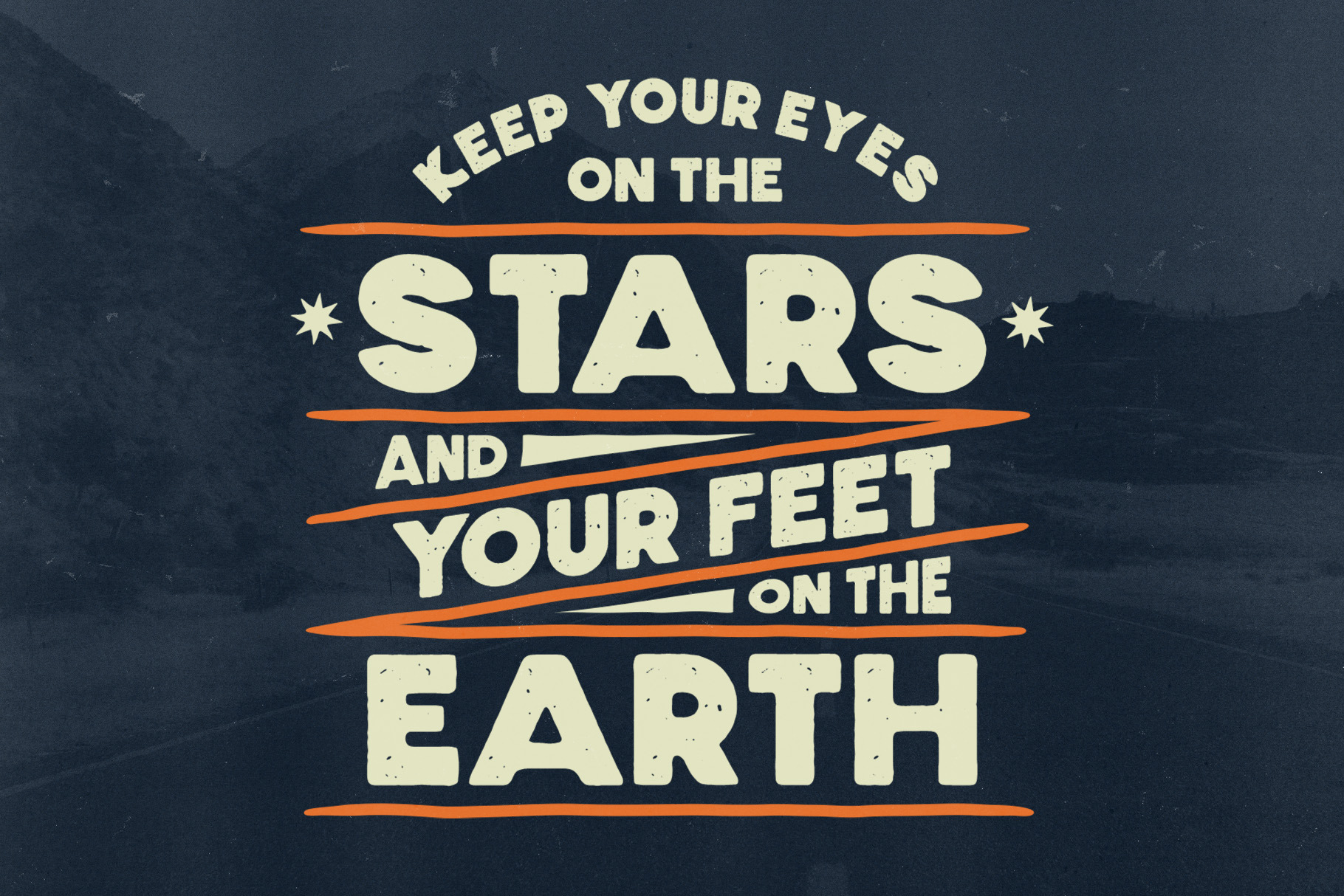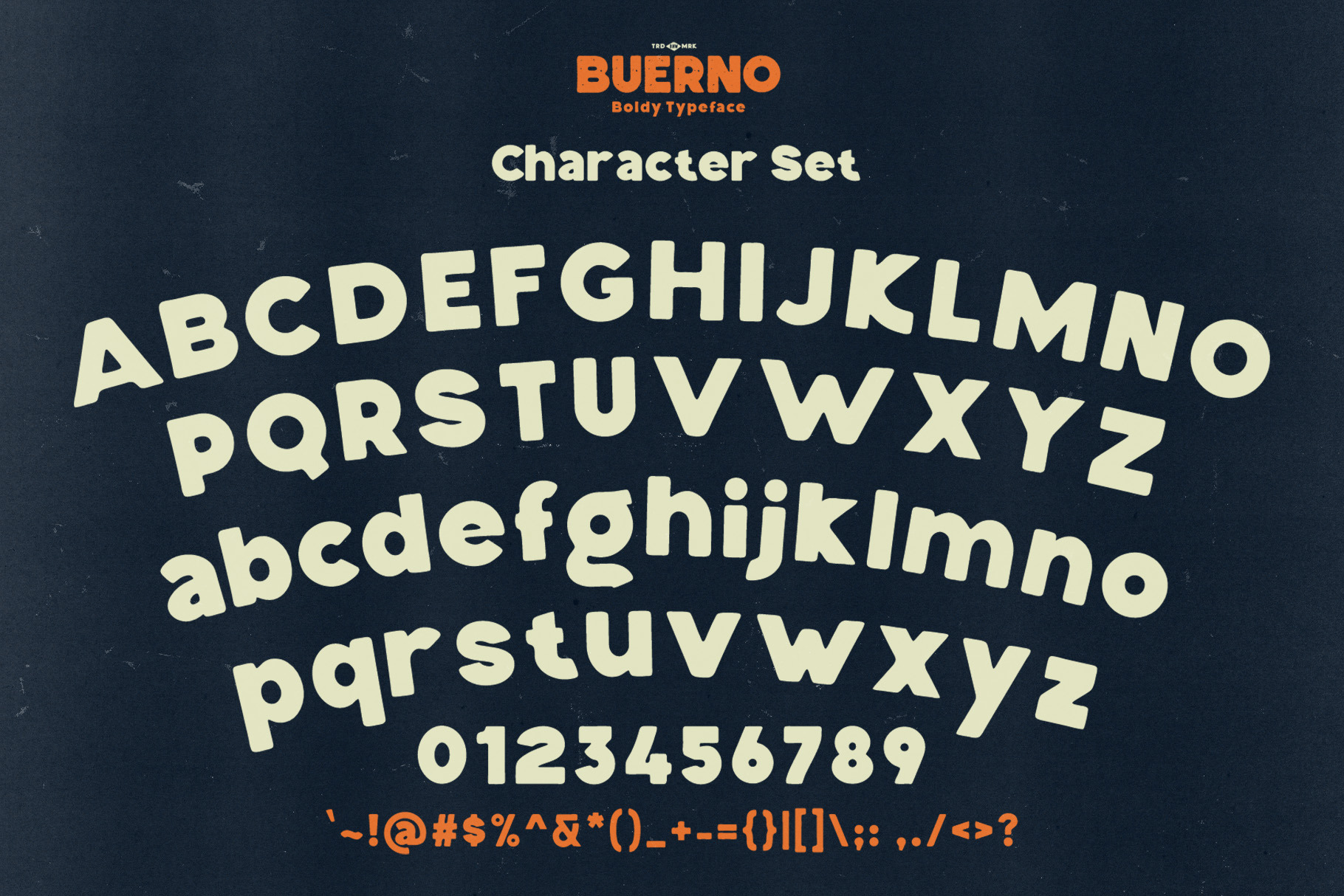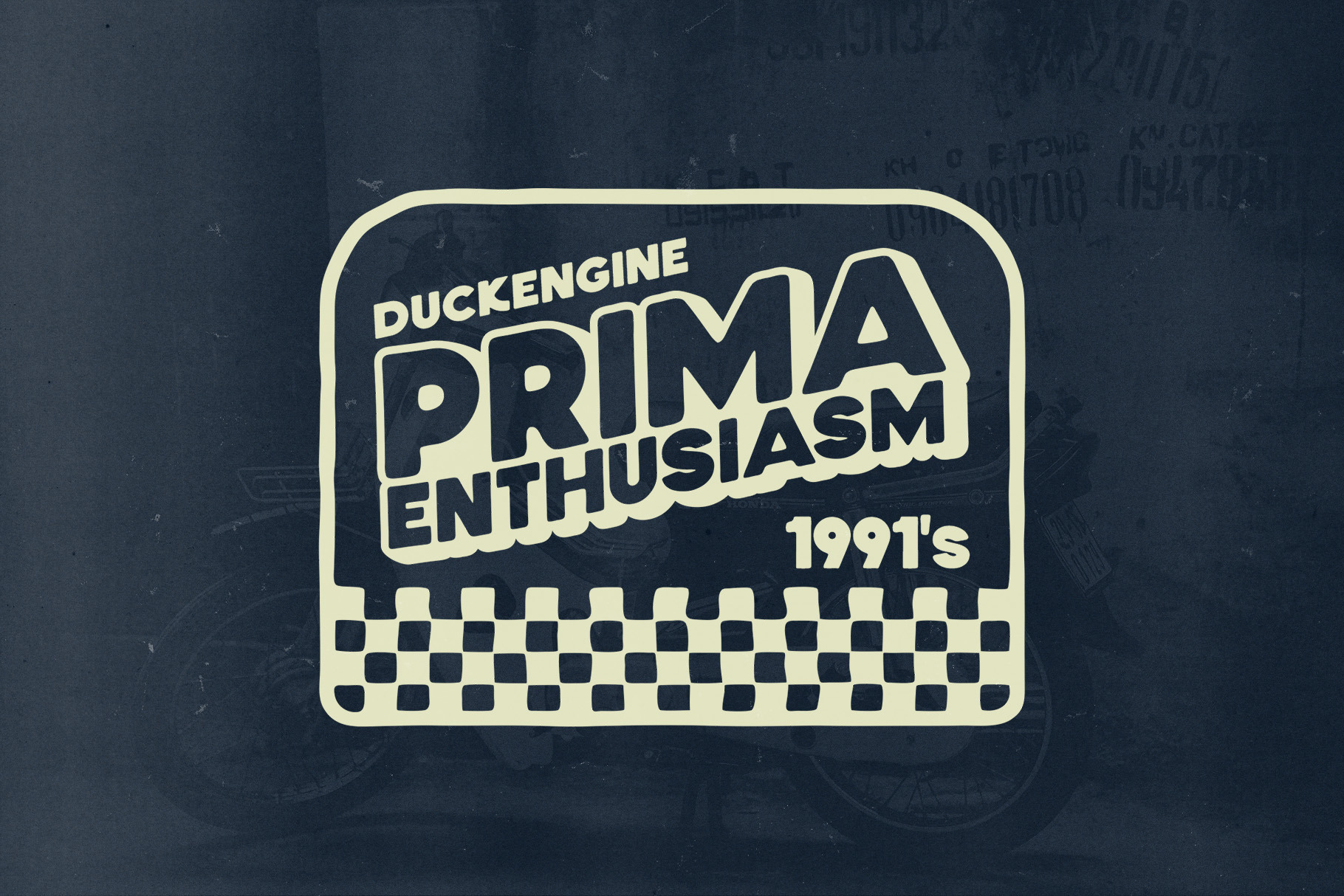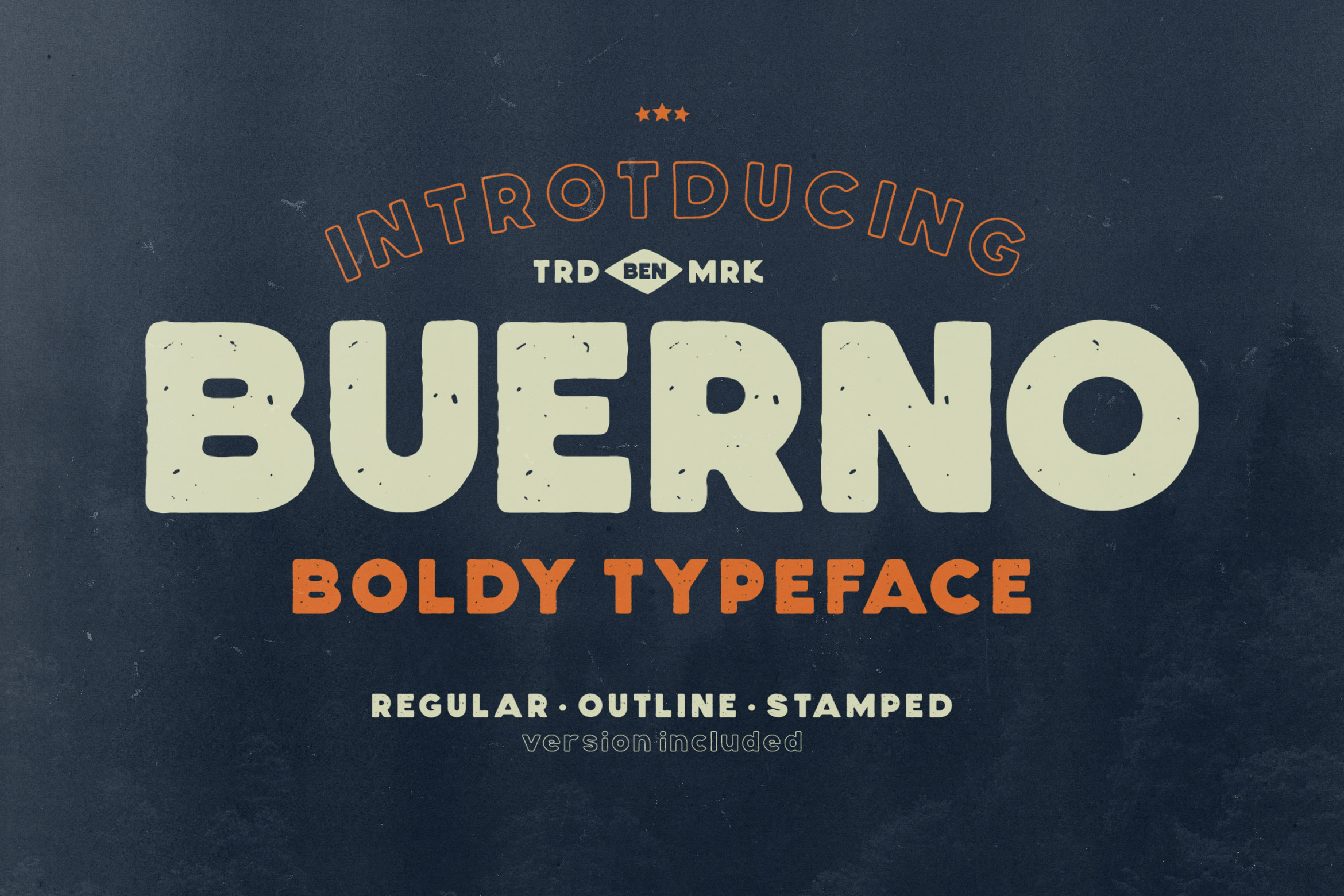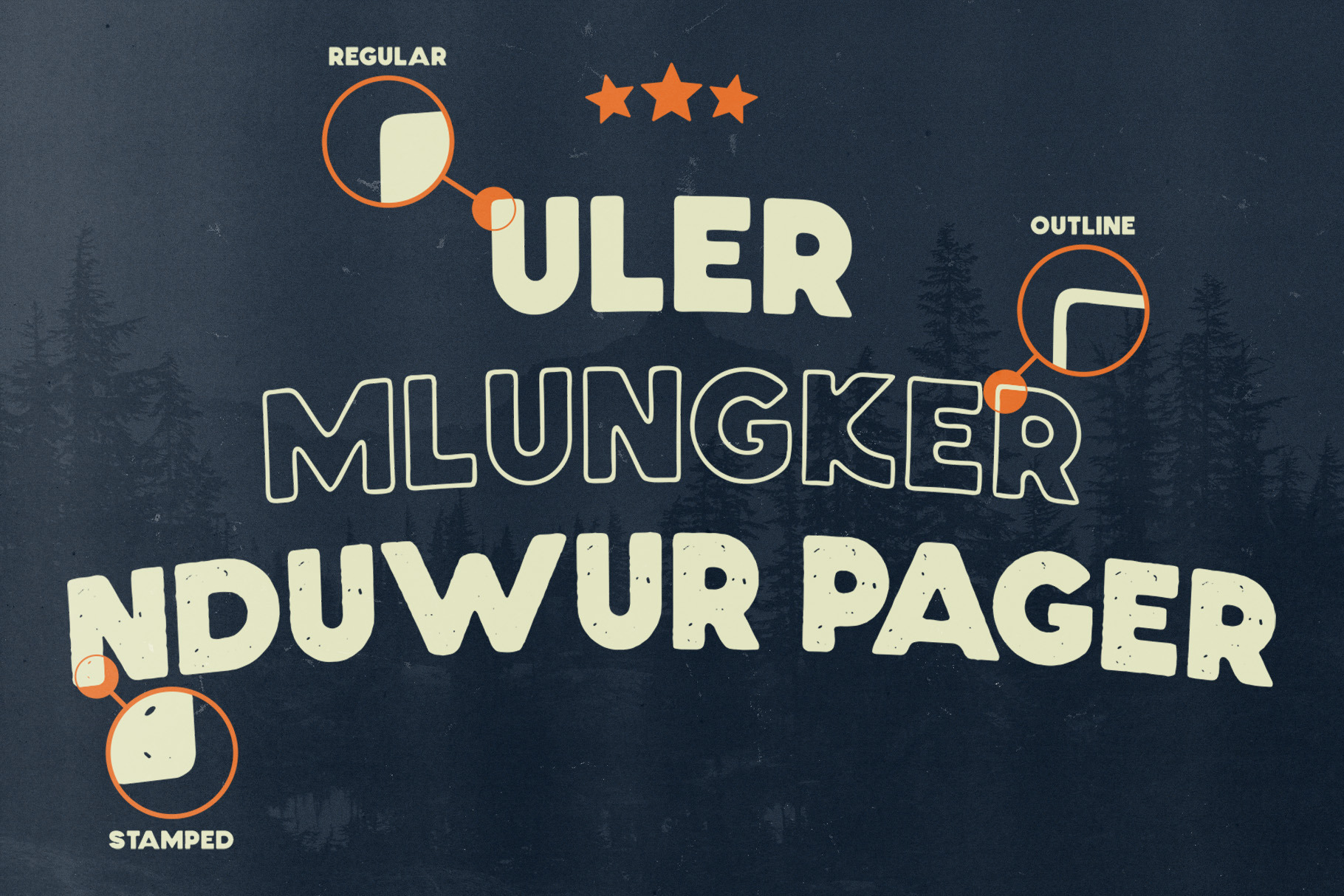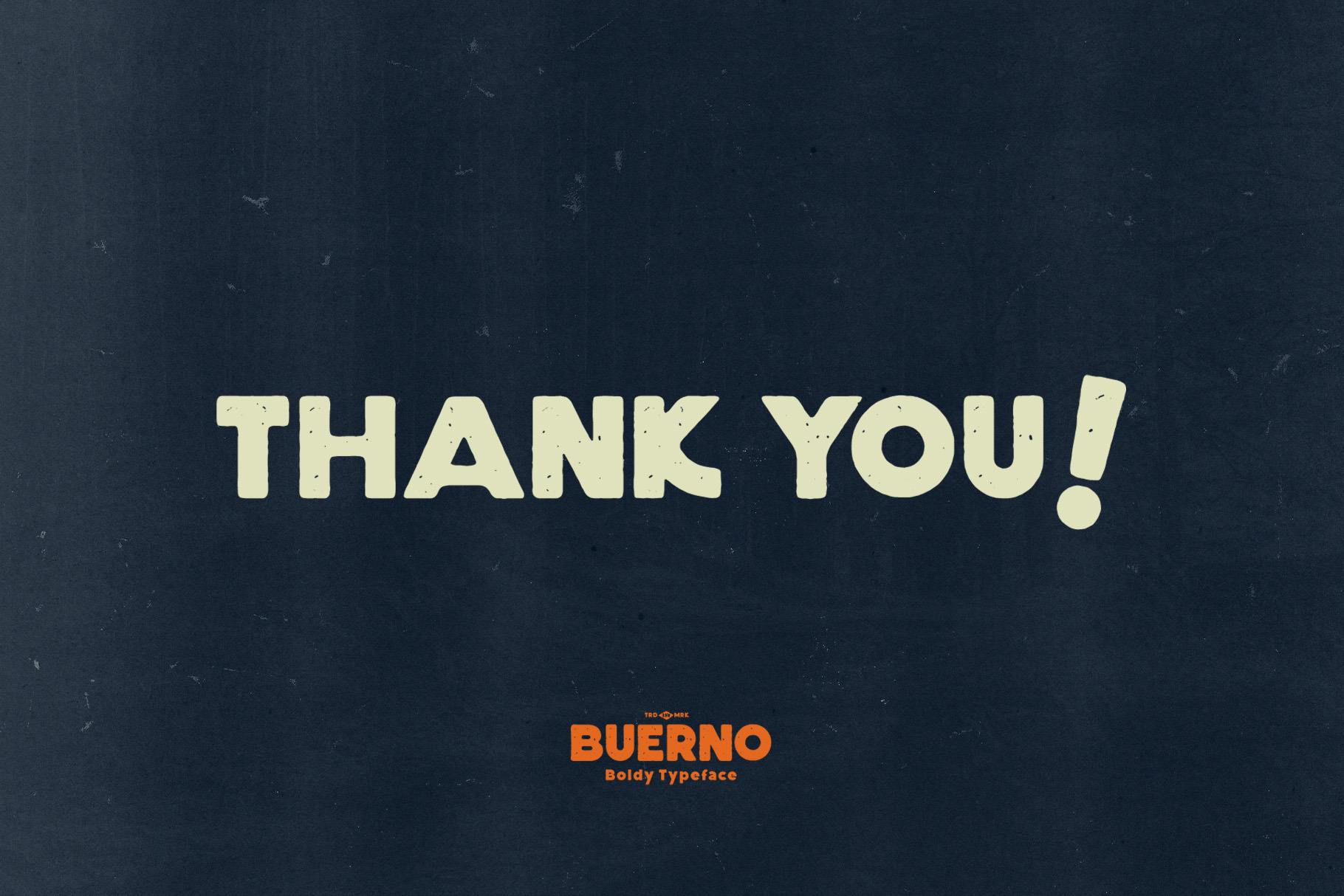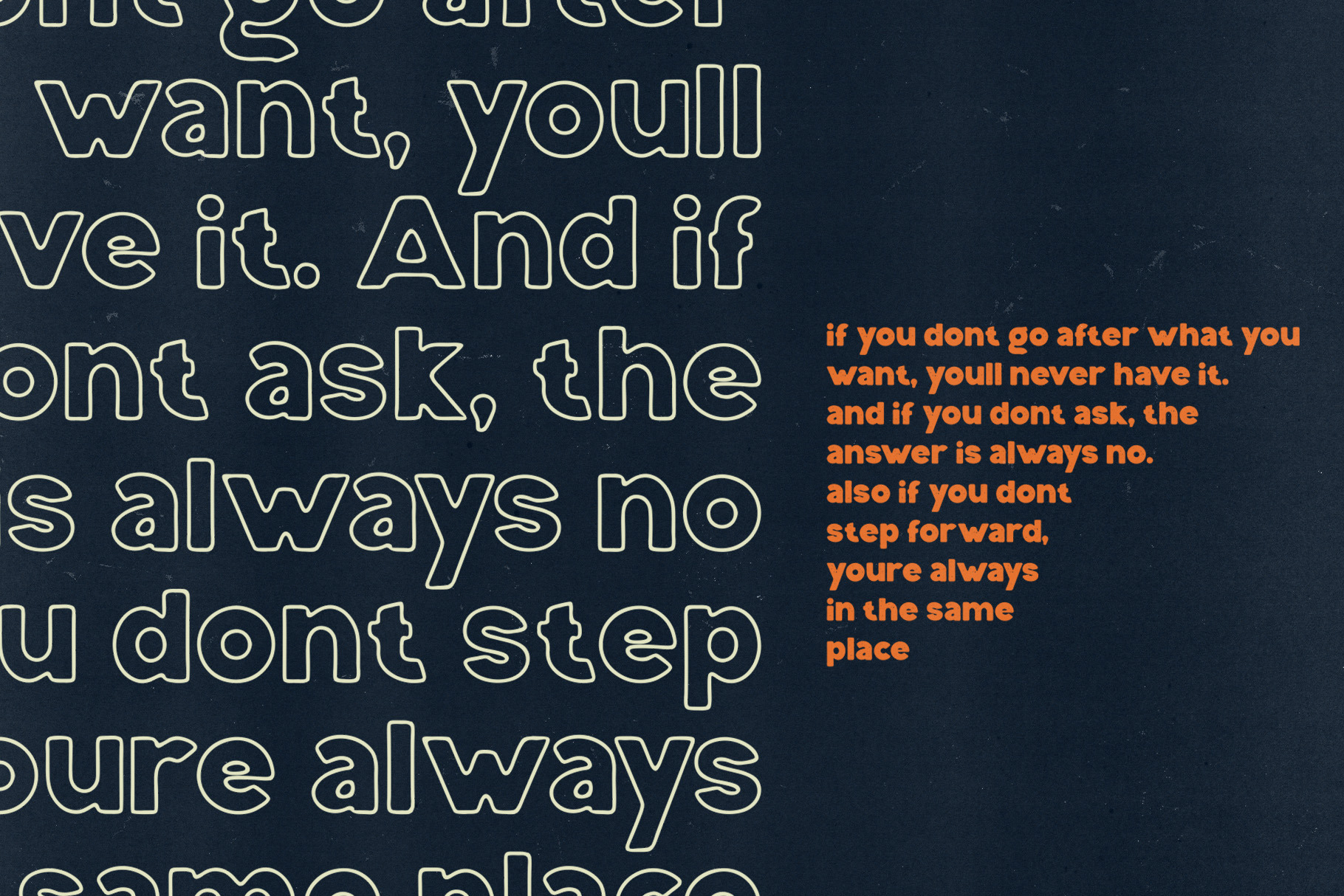
Buerno- Boldy Typeface by Bentype Studio | Creative Market
Buerno - Boldy Typeface Comes with many styles - great for your new logo or branding project. TTF, OTF formats Web Font Alternate Stamp Effect Accessible in Adobe Illustrator, Adobe Photoshop, Adobe InDesign, and even work on Microsoft Word. Great for retro or vintage style branding projects Thanks. Contact us if you need help. | Buerno- Boldy Typeface | Bentype Studio